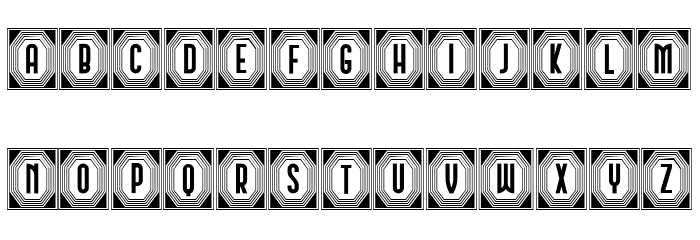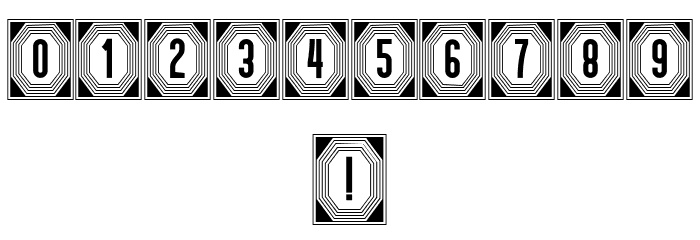
Capitalismo 3 Regular Font
This font features a bold and decorative style with a unique geometric pattern surrounding each character. The letters are encased in octagonal frames, creating a striking visual effect. The characters themselves are sans-serif with a modern, clean design. The consistent use of the octagonal border adds a layer of complexity and sophistication, making it ideal for eye-catching designs. The font includes both uppercase and lowercase letters, numbers, and a selection of special characters, all maintaining the same distinctive style. The overall appearance is both modern and vintage, offering versatility for various design projects.
A bold, decorative font with geometric octagonal frames around each character.
- Proposed Projects: Ideal for posters, logos, branding, and any project requiring a bold, decorative touch.
- Overall Style: Modern, Vintage